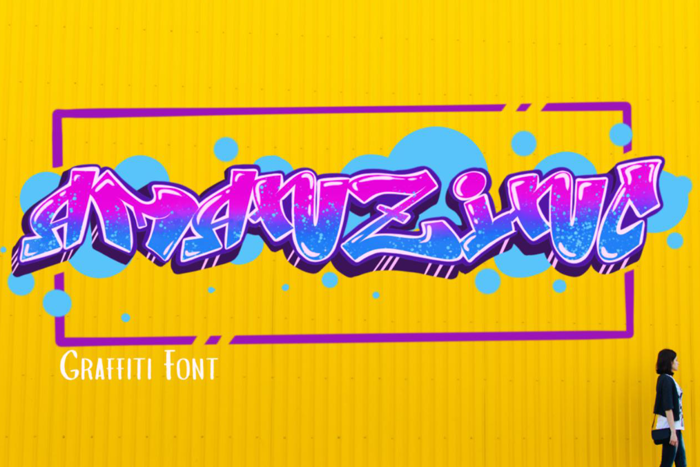
Amanzing Grafiti Font
Amanzinc Grafiti is a graffiti style handwritten font. It includes some punctuation for a great feeling and numeric inside, for any brands, logos, advertising, apparel, crafting, etc.